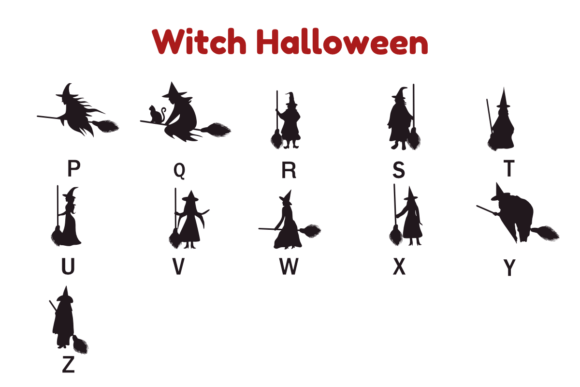
Witch Halloween Font
Witch Halloween is a dingbats font with a spooky sketched theme. This font can enhance your creative projects such as wedding invitations, DIY, crafts, decorations, logos, and many other creative ideas.